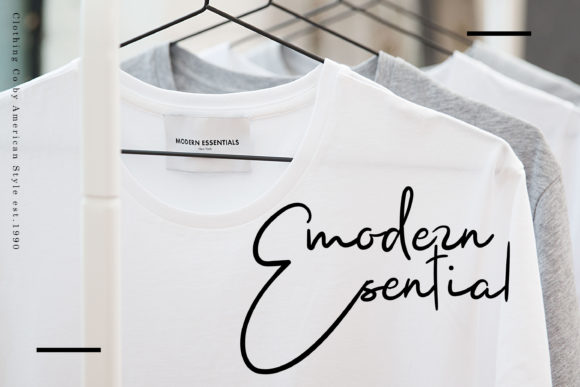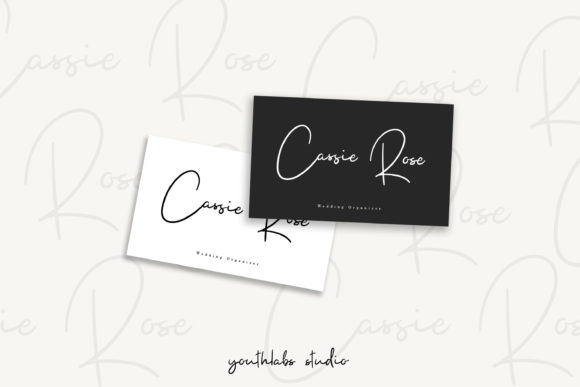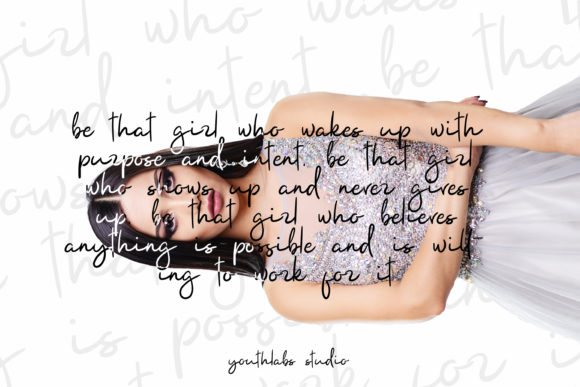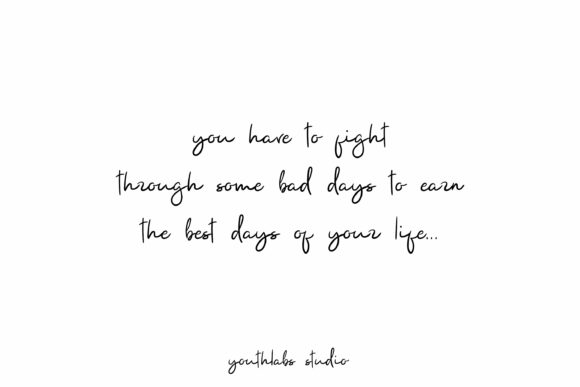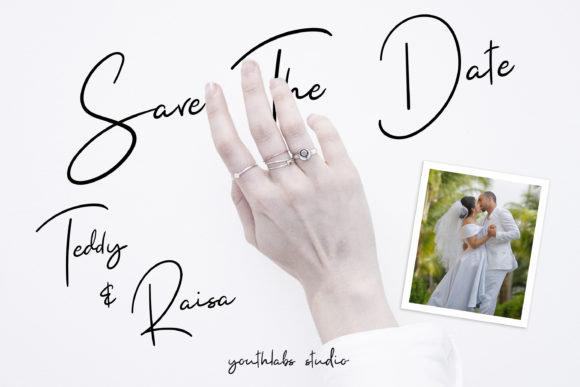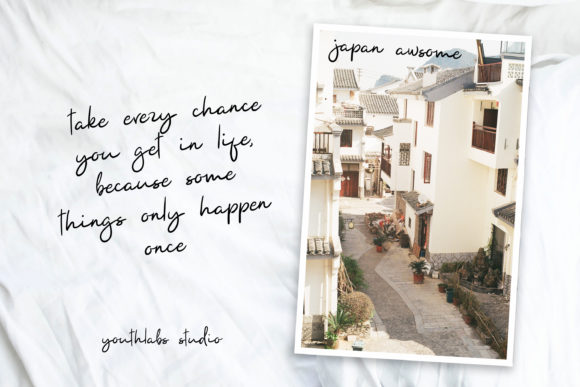
Yuminika Font
About Yuminika Font
The Yuminika is an amazing handwritten script. It includes gorgeous letters which are perfect for adding a natural touch to your designs.